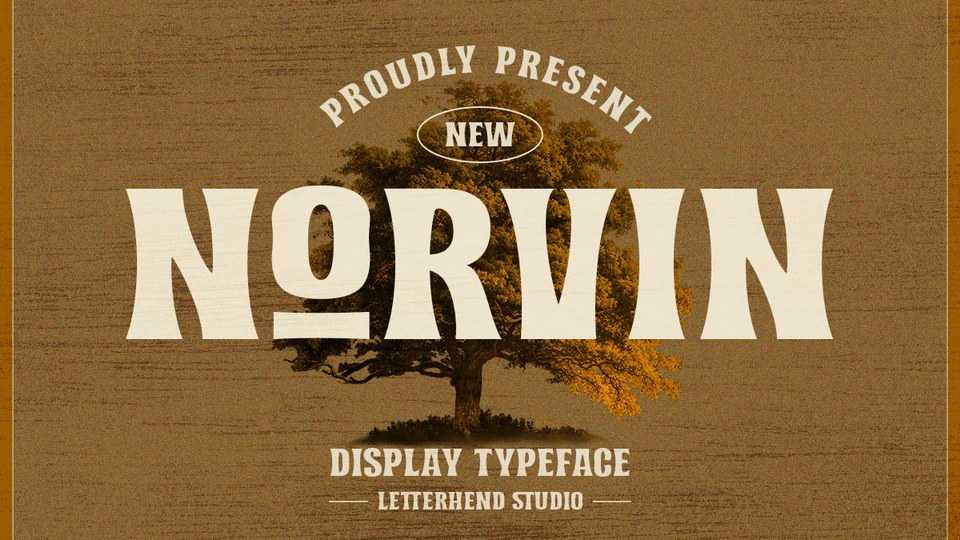
Download Norvin font, a strong and bold sans serif typeface with a touch of vintage look and feel. Norvin is perfect for logo, headline, signage and other vintage projects.